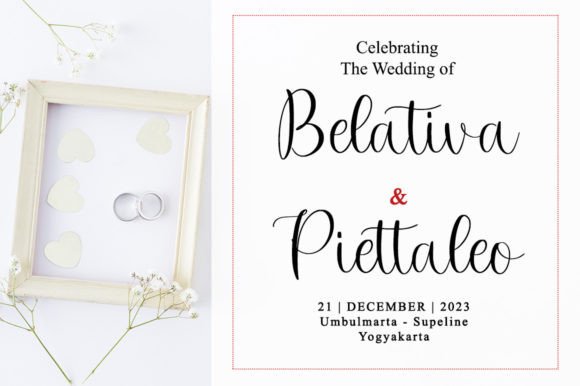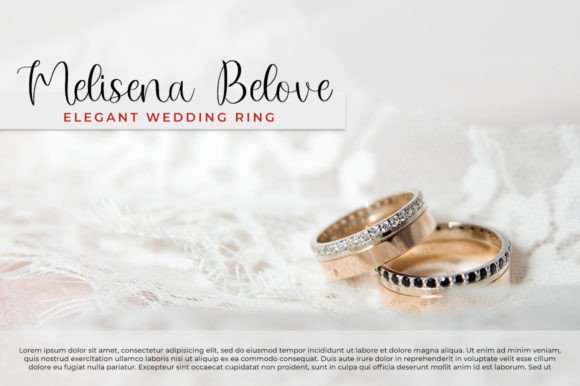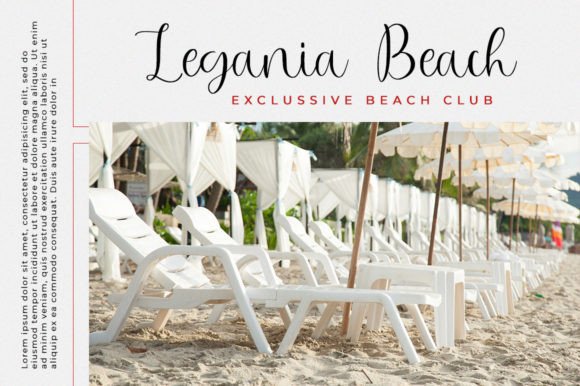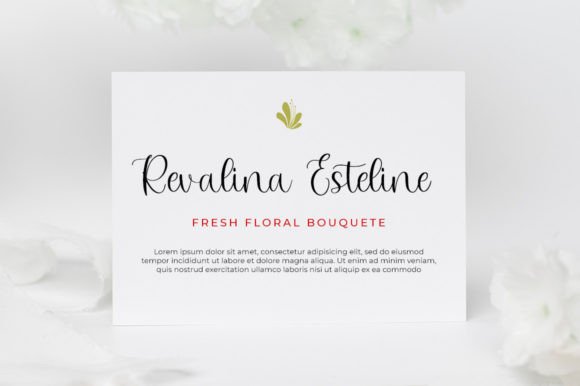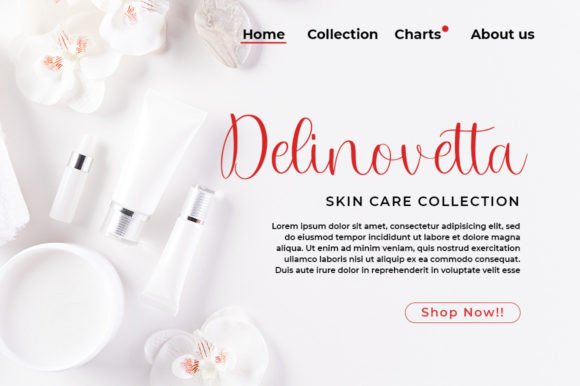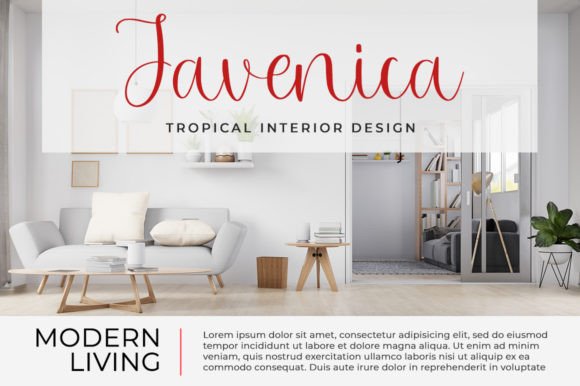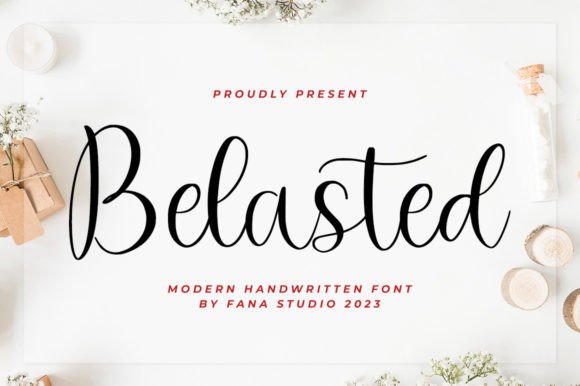
Unleash Your Creativity with Belasted Font: The Ultimate Script Font for Modern Design
Are you a designer or crafter looking for a font that can add a personal touch to your latest art project? Look no further than Belasted Font, a beautiful script font that exudes elegance, class, and modernity. With its unique and stylish design, Belasted Font is perfect for a wide range of projects, from logos and branding to invitations, stationery, and social media posts.
The Characteristics of Belasted Font
Belasted Font is a script font that boasts a distinctive and sophisticated design. Its elegant strokes and curves make it perfect for adding a touch of luxury and refinement to any project. The font is highly legible, making it suitable for both digital and print applications. Whether you’re designing a logo, creating a social media post, or crafting a wedding invitation, Belasted Font is sure to make a lasting impression.
Uses of Belasted Font
Belasted Font is a versatile font that can be used for a wide range of projects, including:
• Logos and Branding: Create a professional and memorable logo for your business with Belasted Font. Its elegant design makes it perfect for corporate branding and identity.
• Invitations and Stationery: Add a touch of sophistication to your invitations, greeting cards, and stationery with Belasted Font.
• Wedding Designs: Make your wedding designs truly special with Belasted Font. Use it to create beautiful wedding invitations, programs, and decorations.
• Social Media Posts: Elevate your social media posts with Belasted Font. Its modern design makes it perfect for creating engaging and stylish social media content.
• Advertisements: Use Belasted Font to create eye-catching advertisements that grab attention and leave a lasting impression.
• Product Packaging: Add a touch of elegance to your product packaging with Belasted Font. Its sophisticated design makes it perfect for luxury brands.
• Labels and Photography: Use Belasted Font to create stylish labels and watermarks for your photos.
Why Choose Belasted Font?
So why choose Belasted Font for your next project? Here are just a few reasons:
• Elegant Design: Belasted Font boasts an elegant and sophisticated design that is sure to impress.
• Versatility: Belasted Font can be used for a wide range of projects, from logos and branding to social media posts and product packaging.
• Legibility: Belasted Font is highly legible, making it suitable for both digital and print applications.
• Modern Look: Belasted Font has a modern design that is perfect for creating stylish and contemporary designs.
Tips for Using Belasted Font
Here are a few tips for using Belasted Font in your designs:
• Use it sparingly: Belasted Font is a elegant font, so use it sparingly to avoid overwhelming your design.
• Pair it with other fonts: Experiment with pairing Belasted Font with other fonts to create a unique and stylish design.
• Adjust the size and color: Adjust the size and color of Belasted Font to suit your design needs.
In conclusion, Belasted Font is a beautiful script font that offers a personal touch to your latest art project with an elegant, classy, and modern look. Its versatility, legibility, and elegant design make it perfect for a wide range of projects, from logos and branding to social media posts and product packaging. Whether you’re a designer or crafter, Belasted Font is sure to become a valuable addition to your font collection.